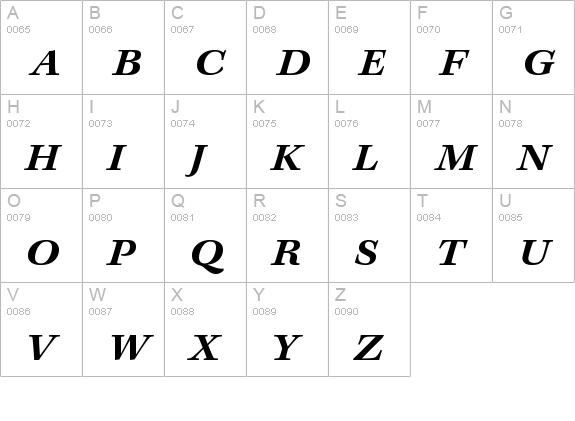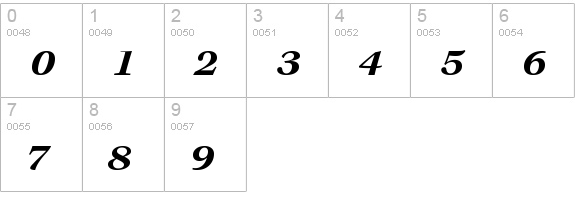
Kepler Std Semibold Extended Italic Caption Font Details
Kepler Std Semibold Extended Italic Caption is a sub-bold, structured, extended-width, italic variant in the Kepler typeface family \xE2\x80\x94 well suited to sub-headlines and emphasised passages.
Kepler Std Semibold Extended Italic Caption font is a stylish and elegant typeface that is perfect for adding a touch of sophistication to any design project. This font exudes a sense of confidence and modernity with its extended and bold letterforms, making it ideal for headlines, captions, and branding materials. The italicized slant of the letters adds a subtle flair and dynamic energy, giving your text a visually appealing and unique appearance. Whether you're designing a magazine layout, creating a logo, or crafting a poster, Kepler Std Semibold Extended Italic Caption font will elevate your design to new heights. One of the best aspects of this font is that it is freely available to download at FontsMarket.com. This means that you can easily access and utilize this stunning typeface without any restrictions or limitations. With just a few clicks, you can enhance your creative projects with the beauty and versatility of Kepler Std Semibold Extended Italic Caption font. The clean and crisp lines of this font make it highly readable, even at smaller sizes, making it suitable for captions and subtitles in various media formats. Its extended letterforms also ensure that your text stands out and grabs attention, allowing you to make a bold statement in your designs. Whether you're a professional graphic designer or a hobbyist looking to add a touch of elegance to your personal projects, Kepler Std Semibold Extended Italic Caption font is the perfect choice. With its stylish and modern aesthetic, this font is sure to impress and leave a lasting impression on your audience. So why wait? Download Kepler Std Semibold Extended Italic Caption font for free at FontsMarket.com and take your designs to the next level. Unleash your creativity and explore the endless possibilities that this font has to offer.